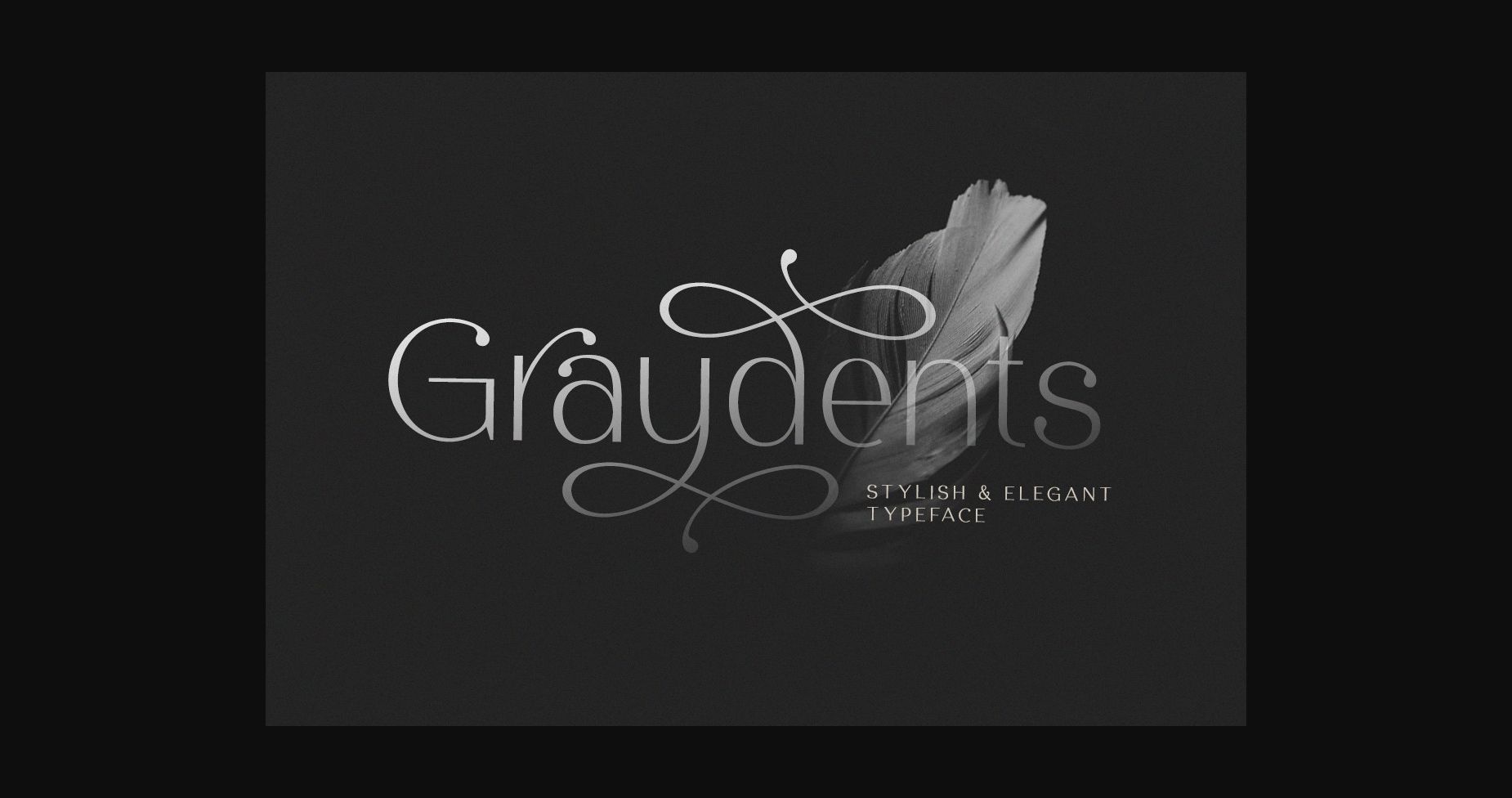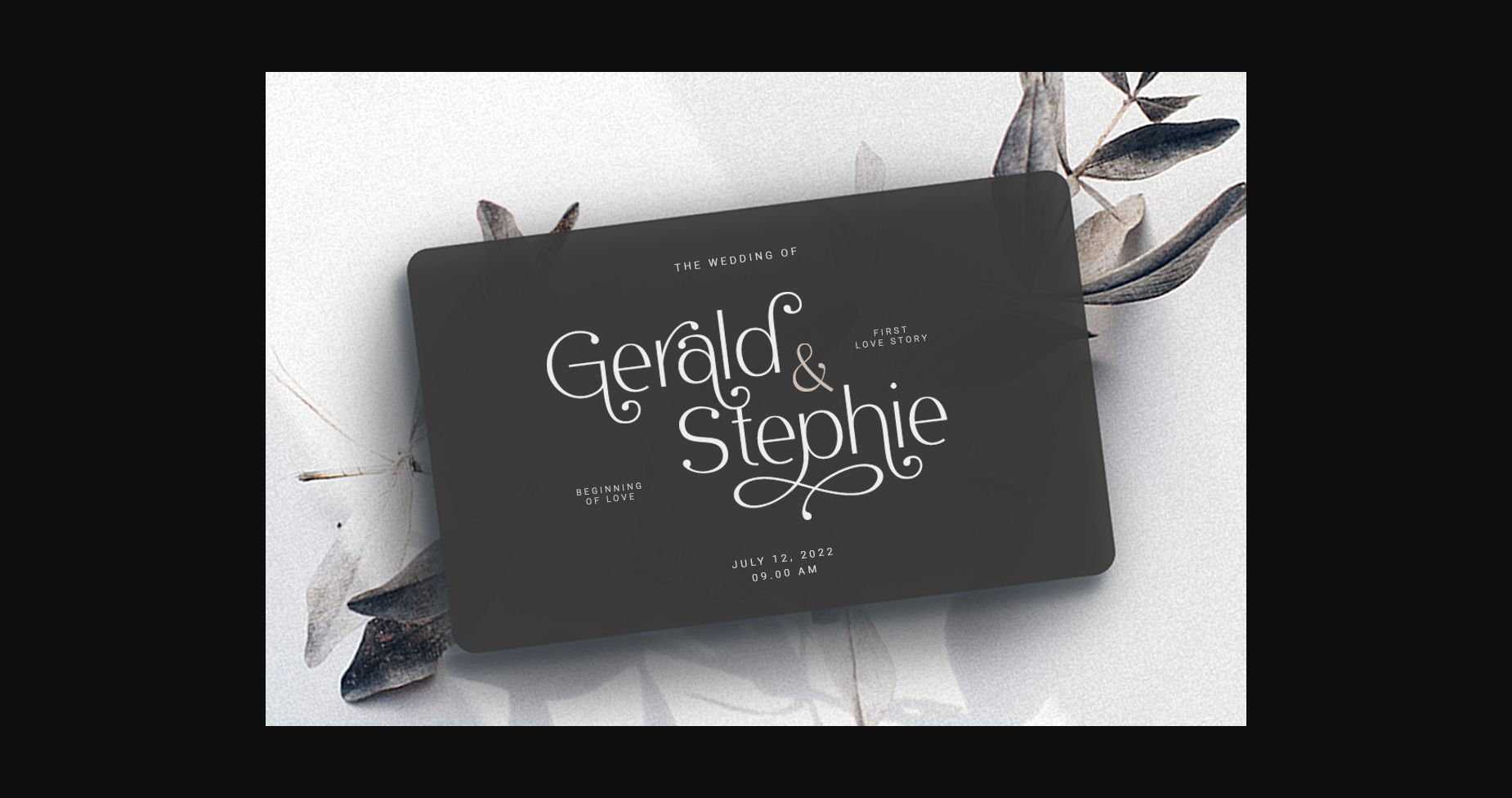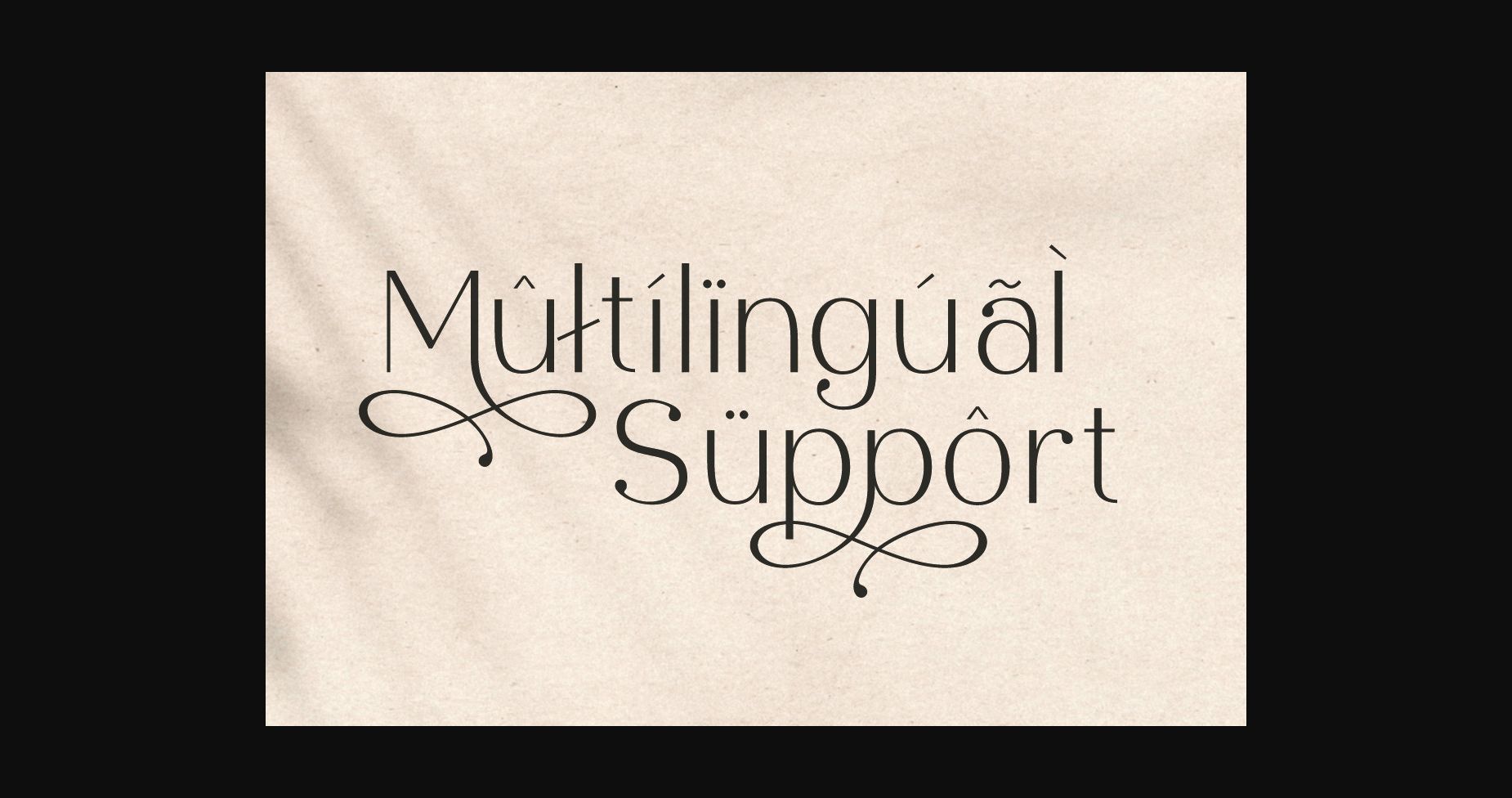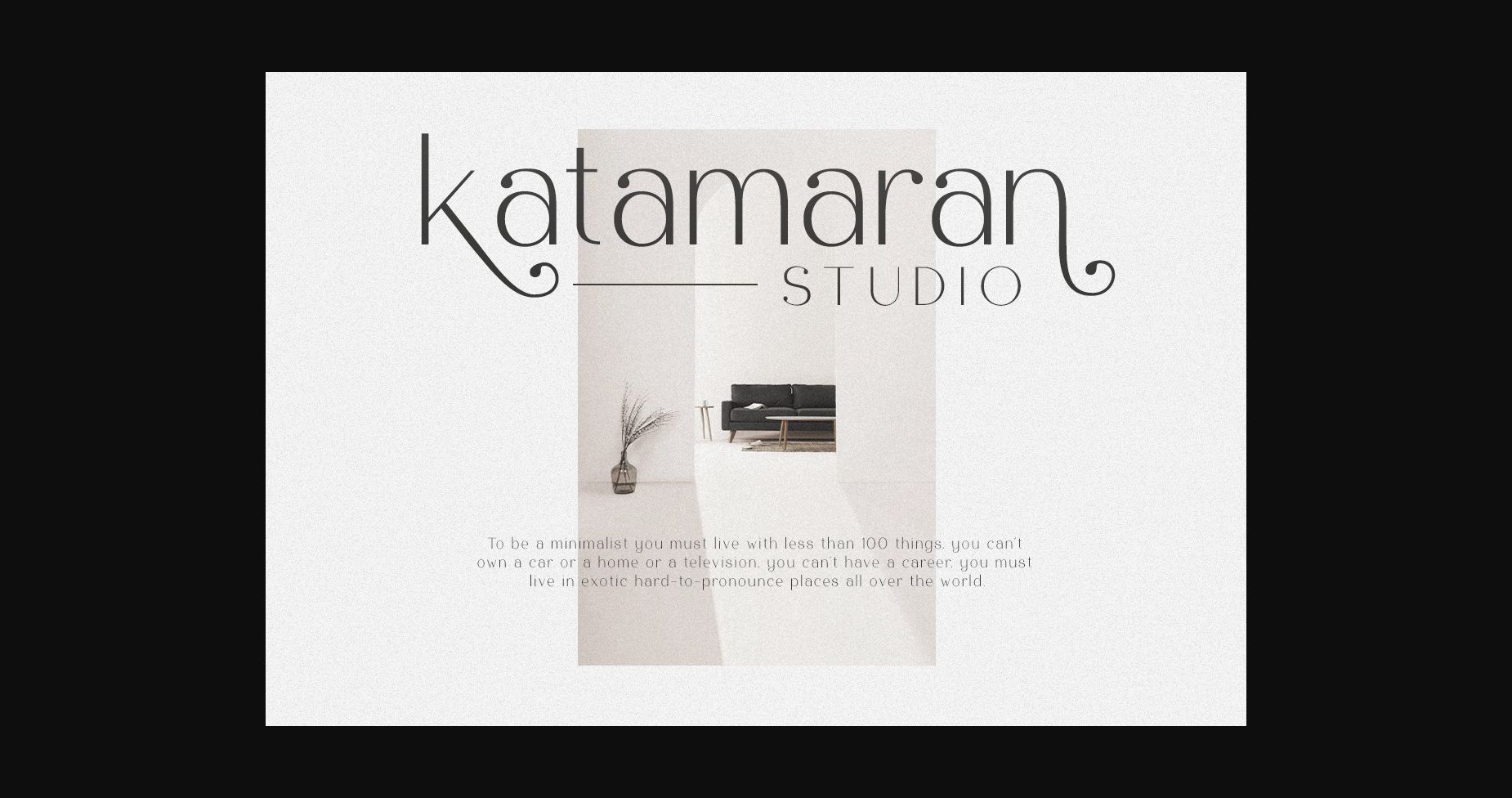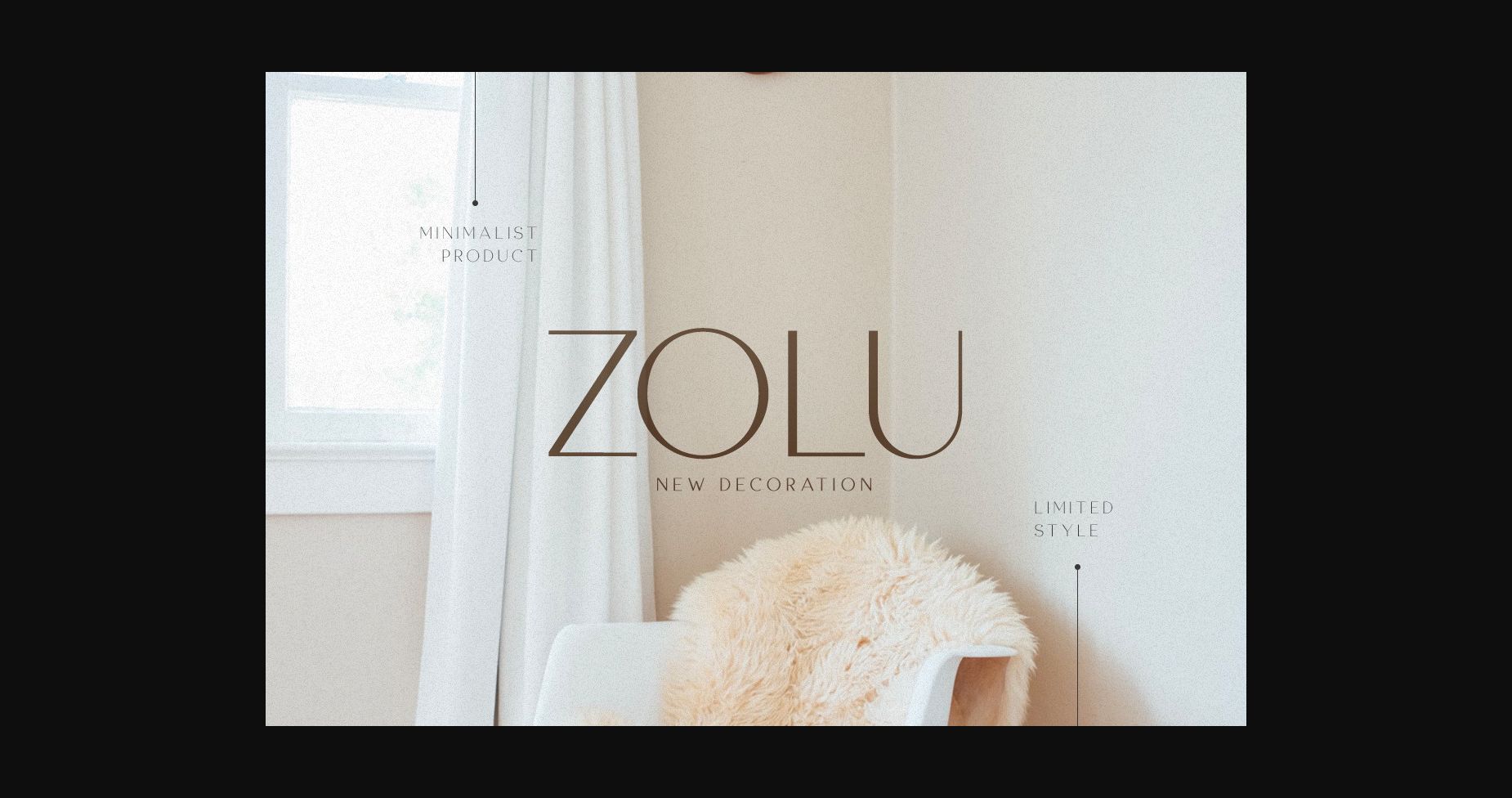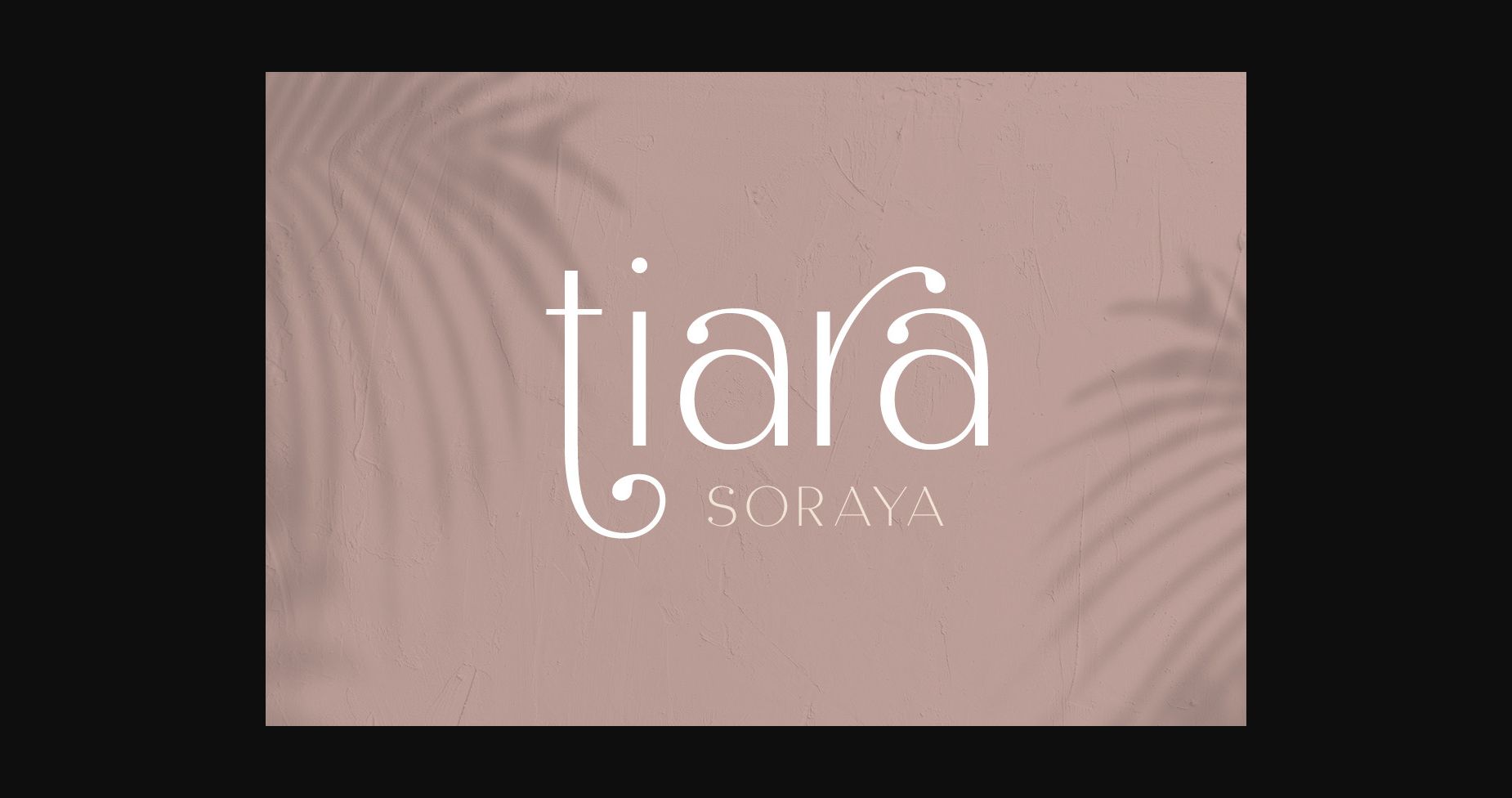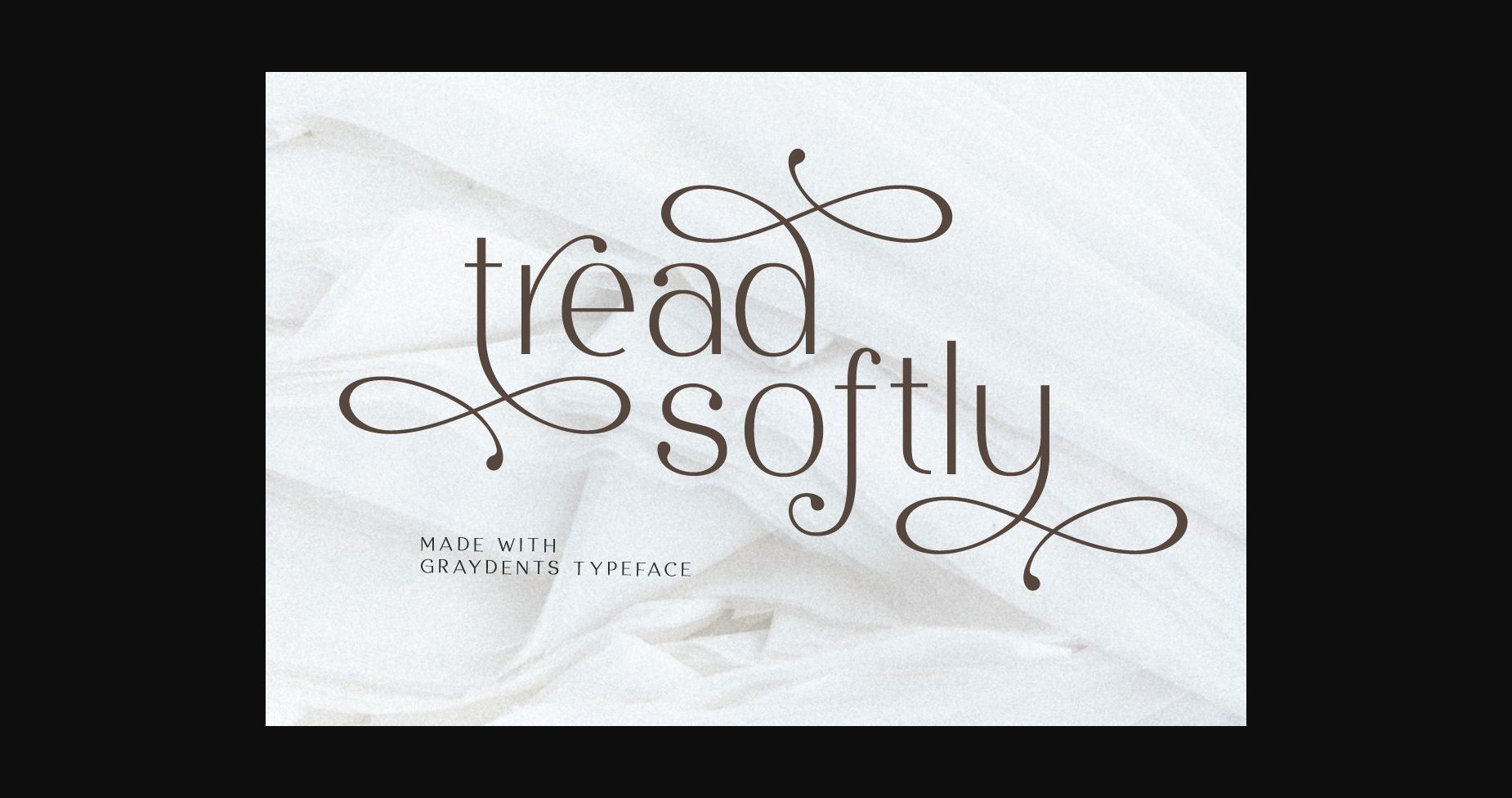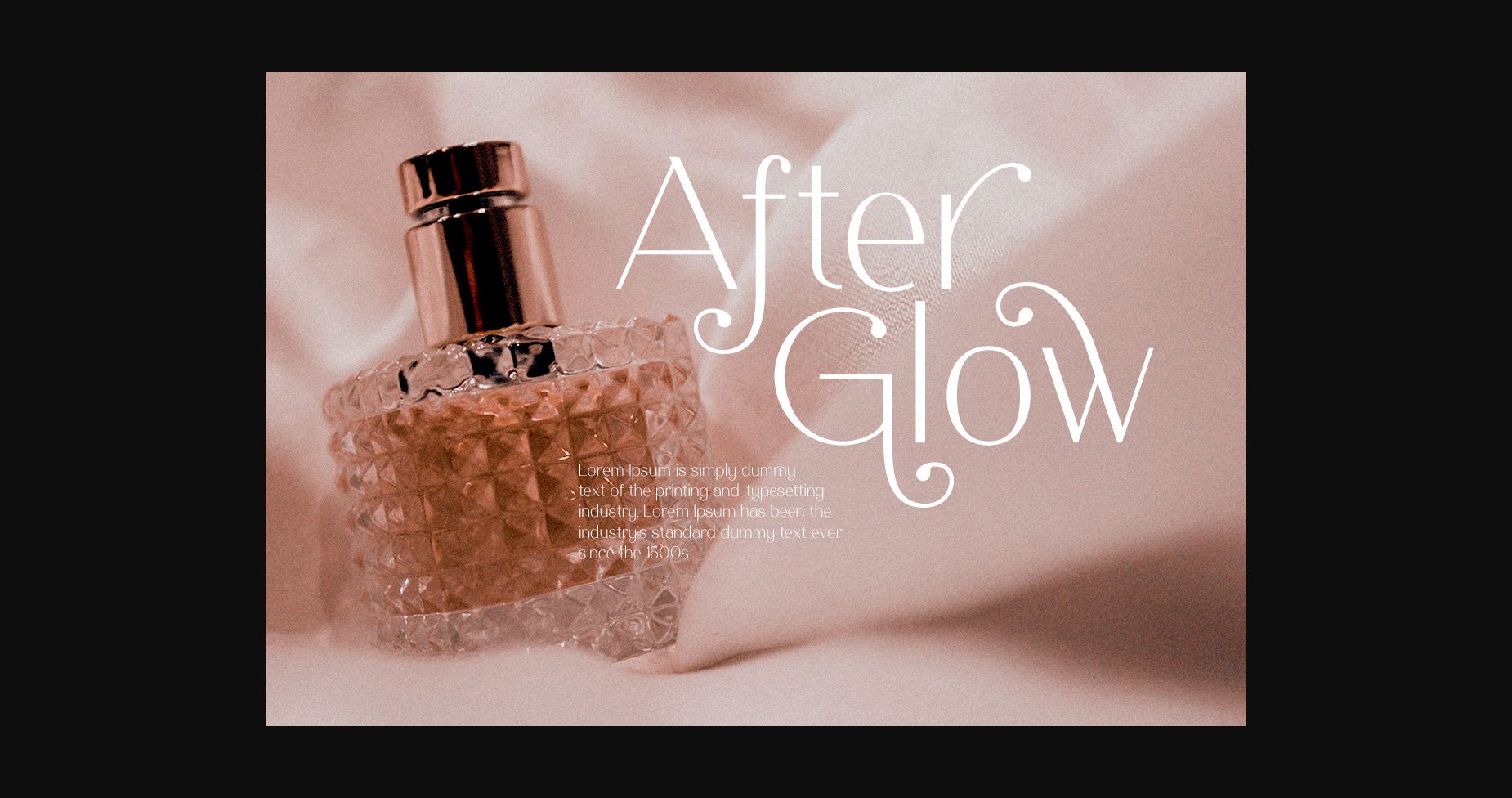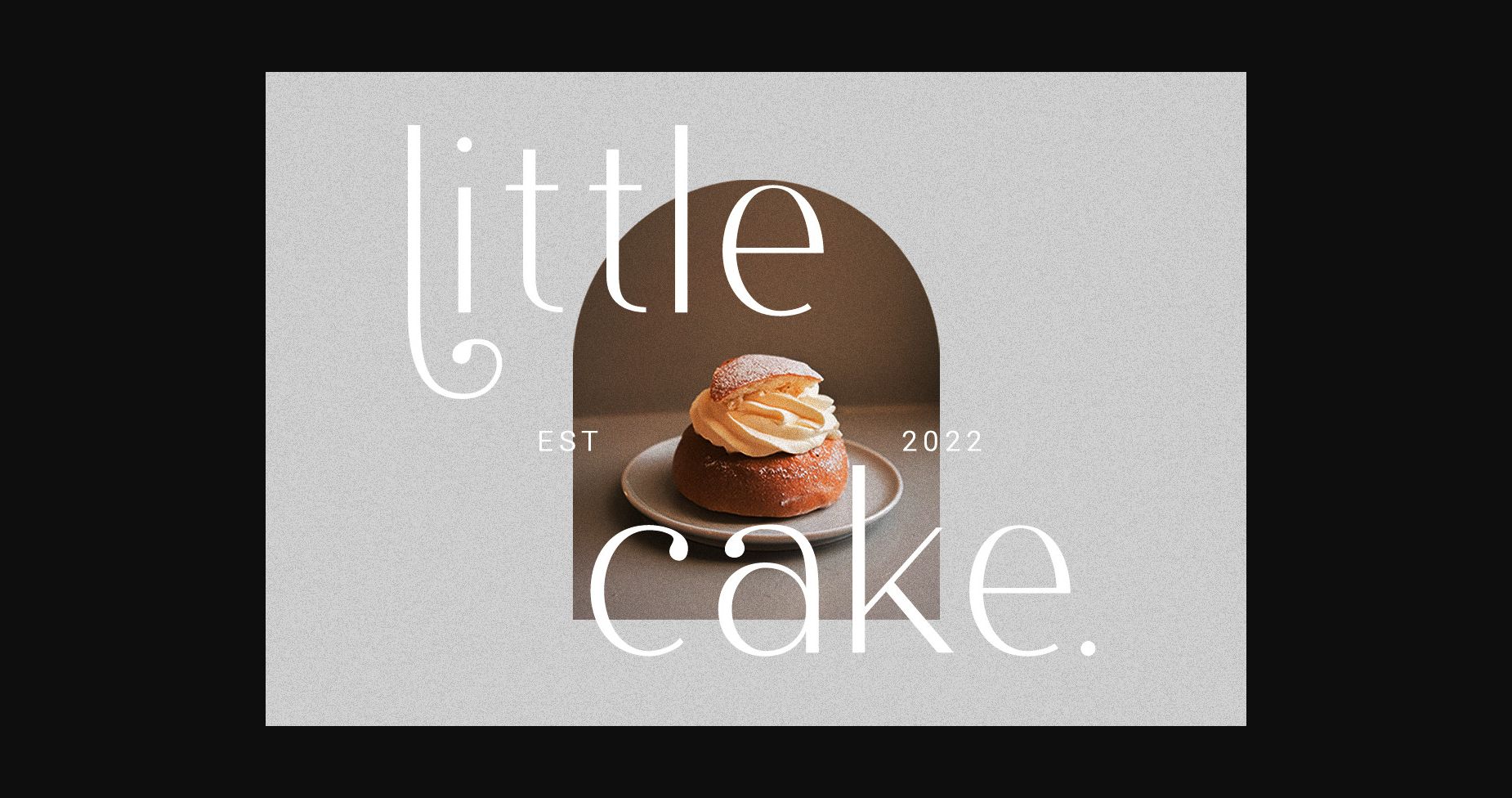
Graydents is a stylish and elegant sans serif font, that will make your project even more stunning and stand out! It has a modern yet whimsical style and it will undoubtedly immerse your designs into a magical world.